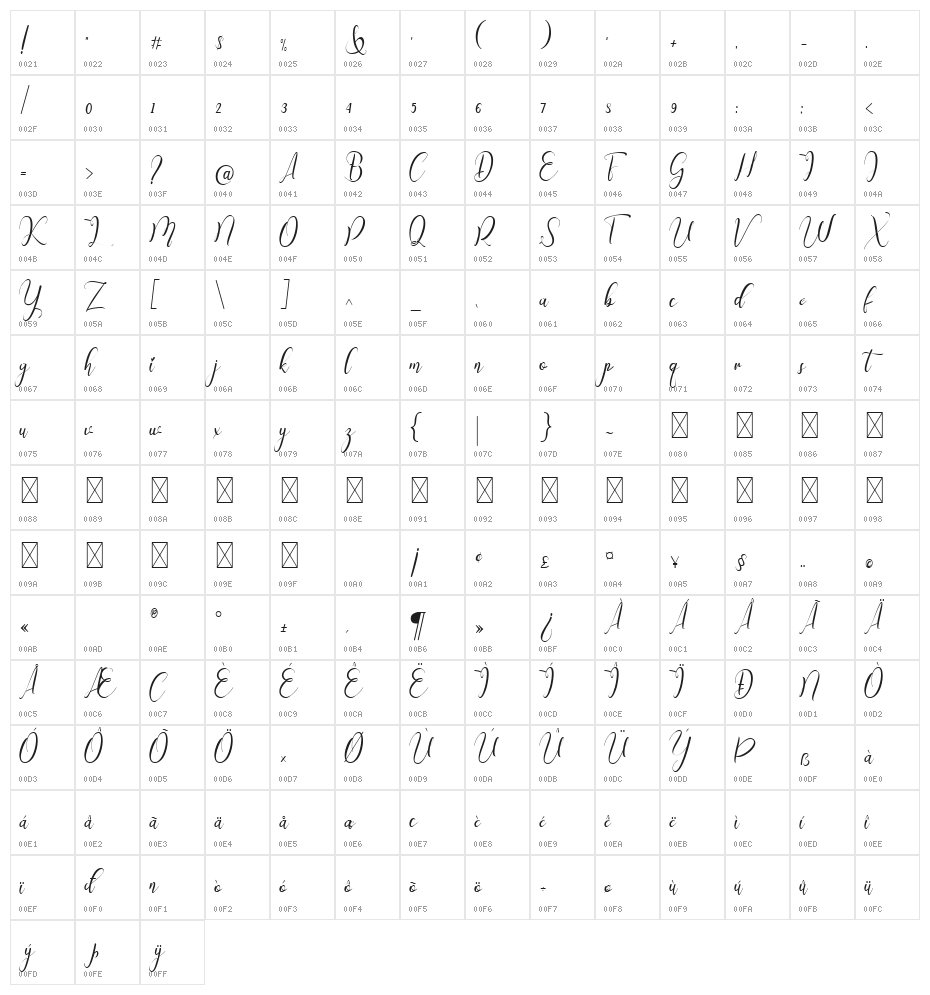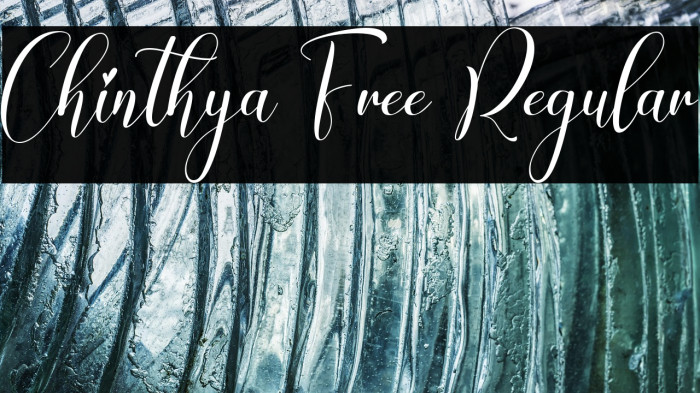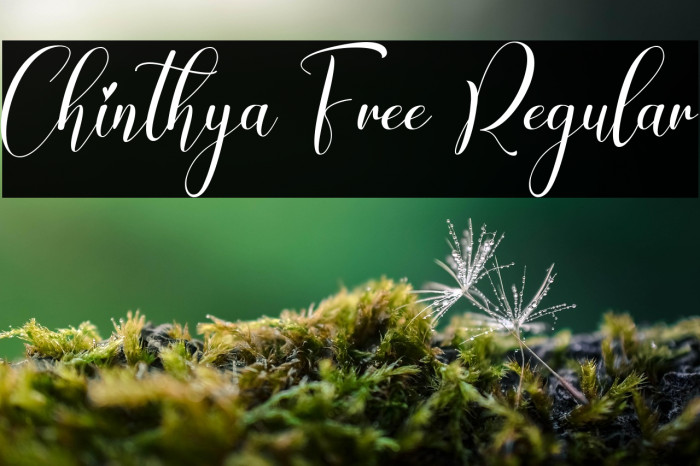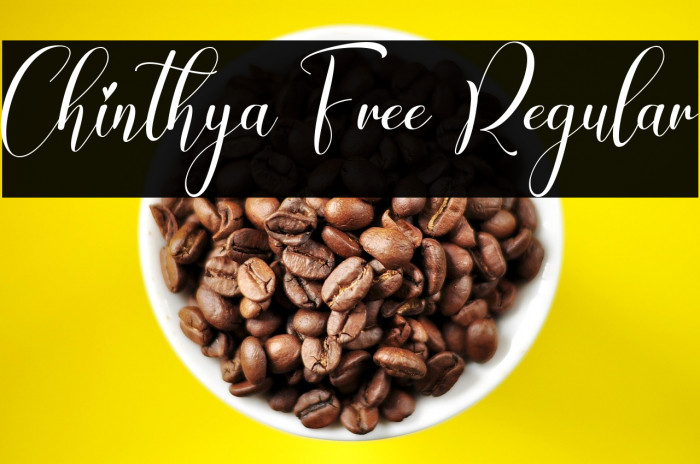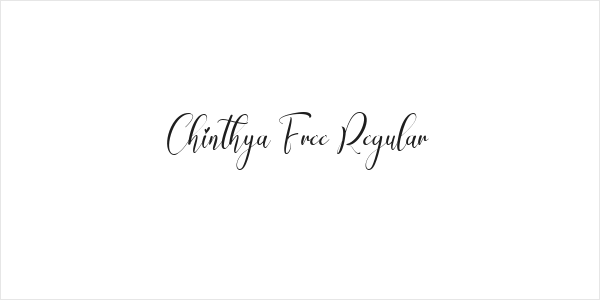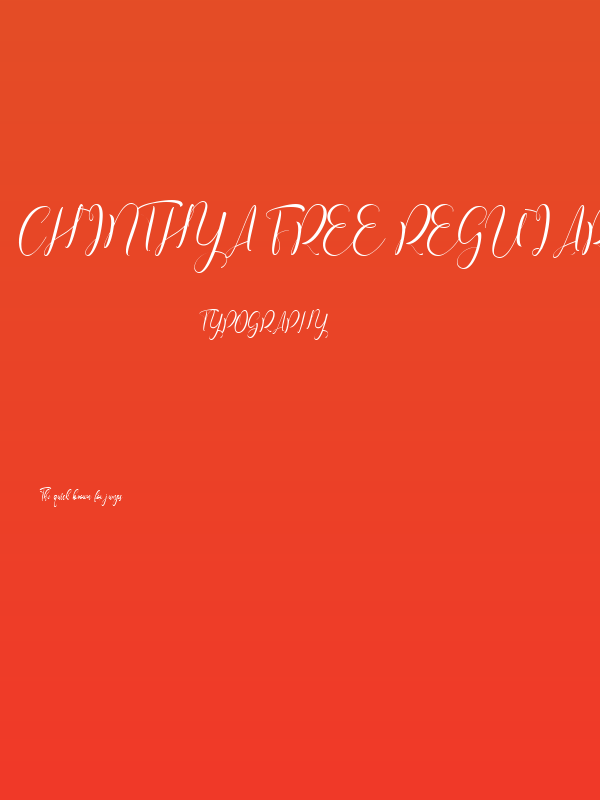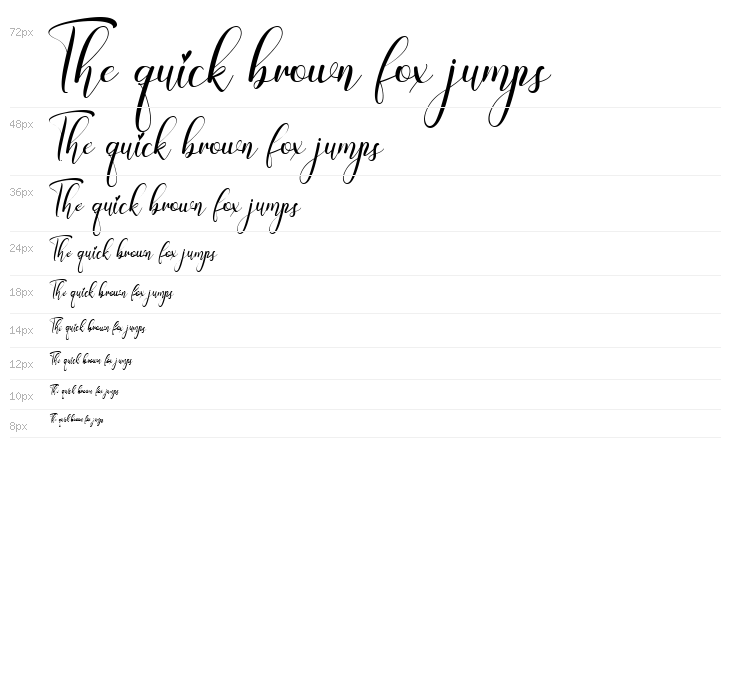
Chinthya Free Regular Font
Chinthya Free Regular Description
This elegant script font features flowing, interconnected letters with a calligraphic style. The uppercase letters are particularly ornate, with sweeping curves and flourishes that give a sense of movement and grace. The lowercase letters maintain a consistent style, offering a harmonious blend with the uppercase. The numerals are clear and maintain the script's elegance, while the special characters are designed to complement the overall aesthetic. This font exudes sophistication and is perfect for projects that require a touch of class and elegance.